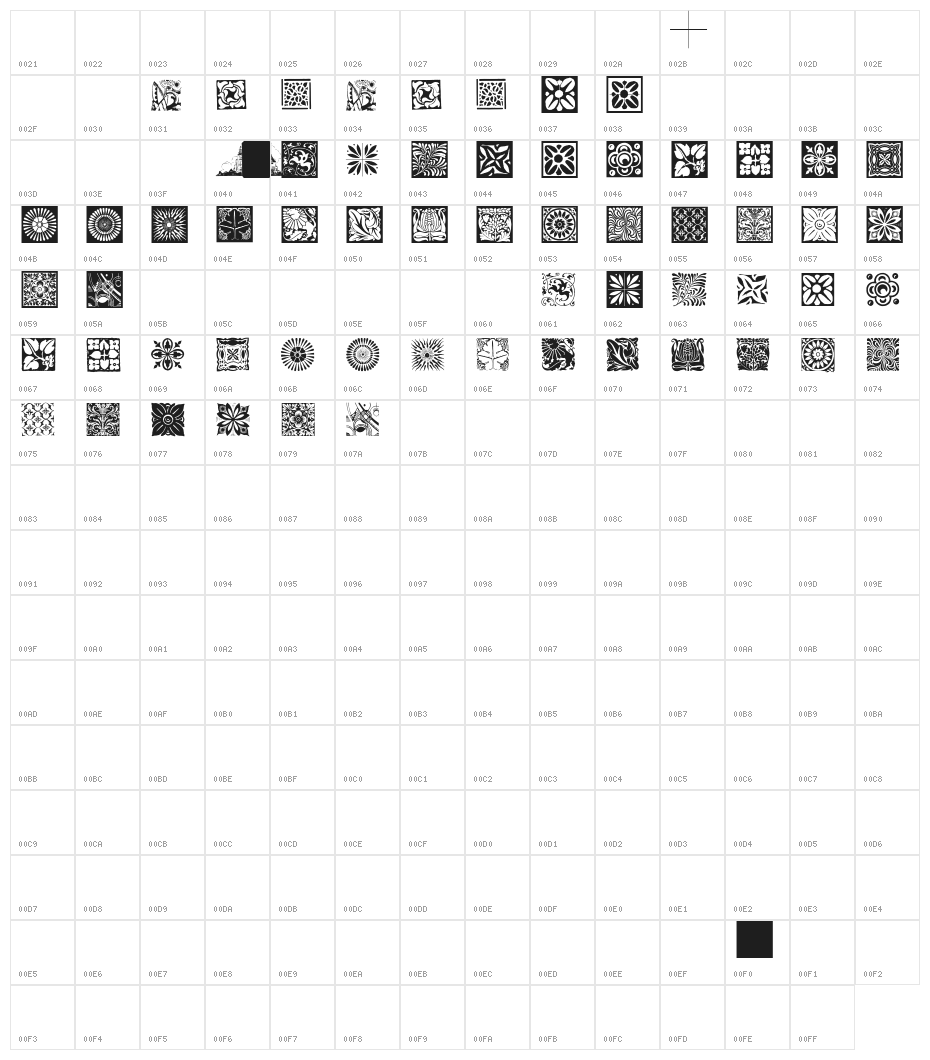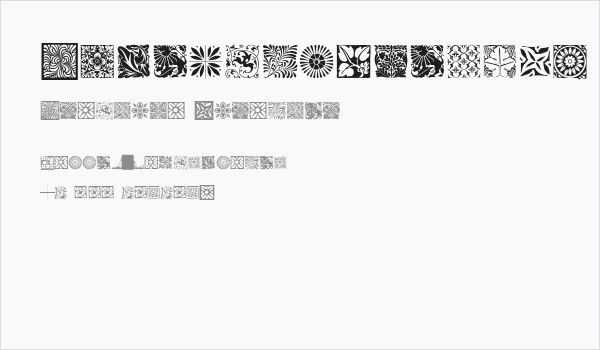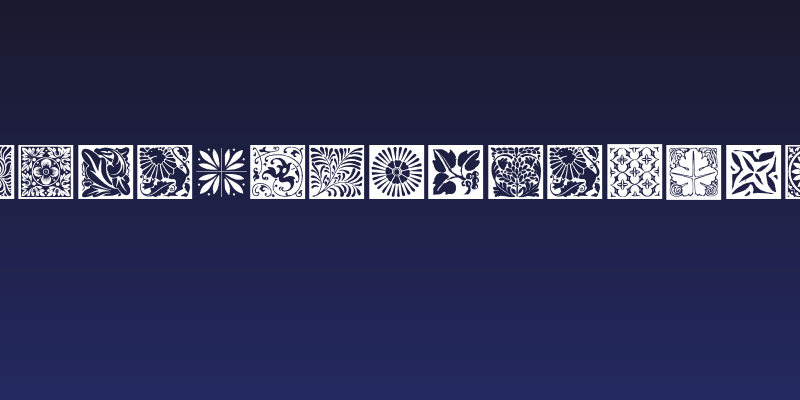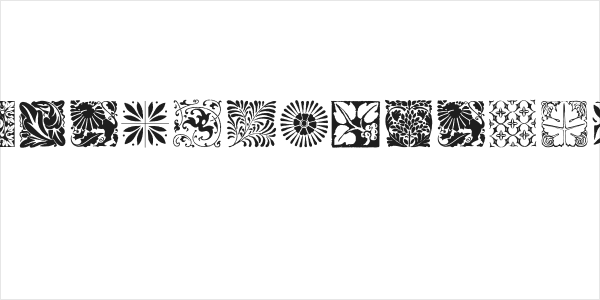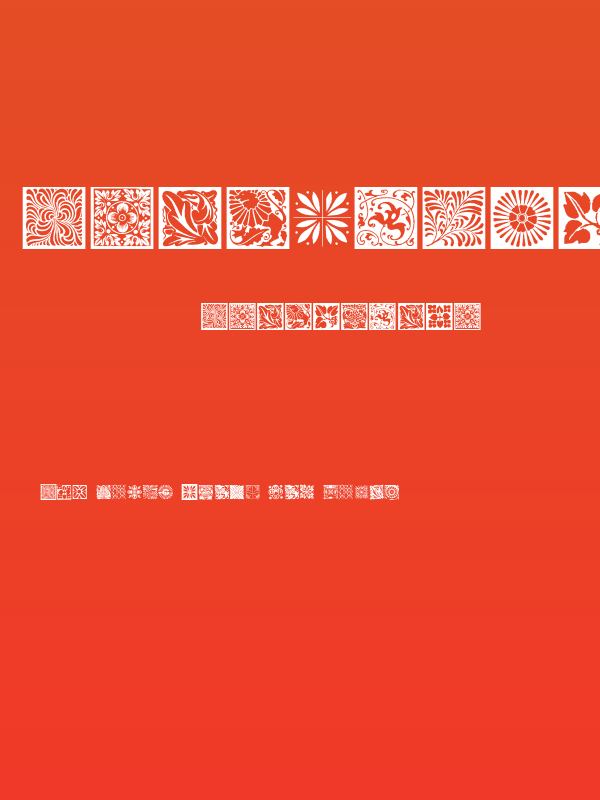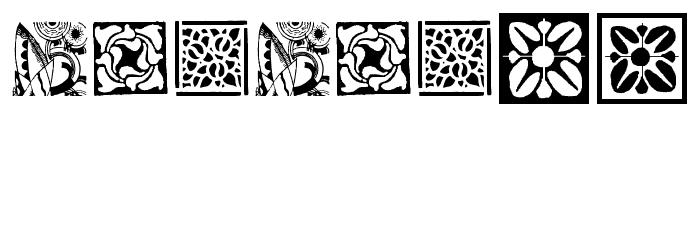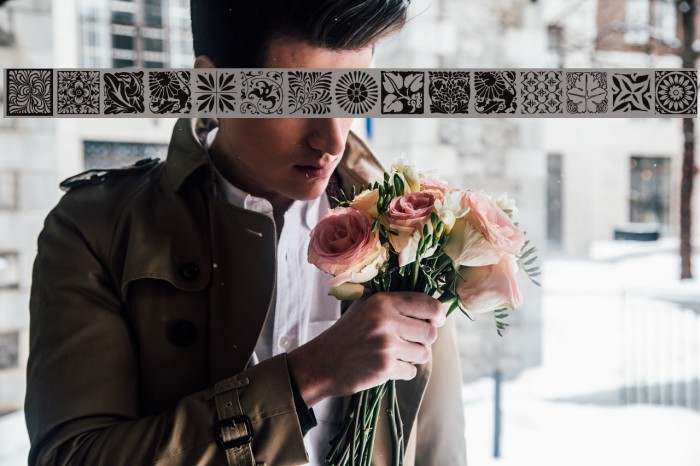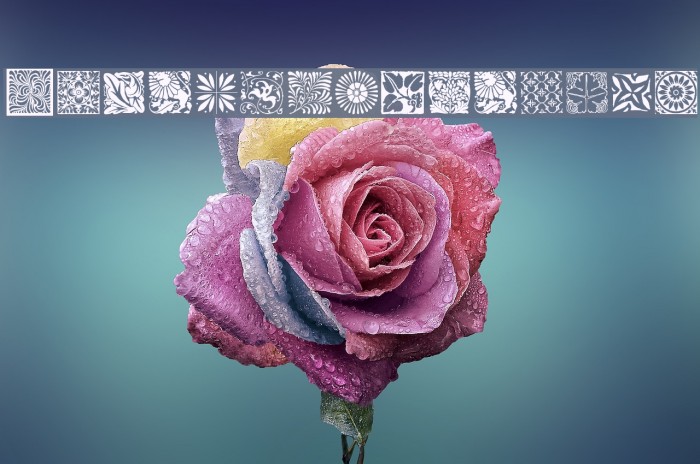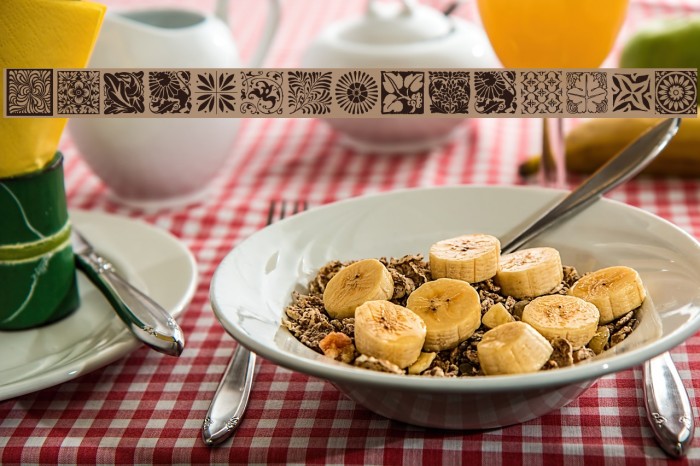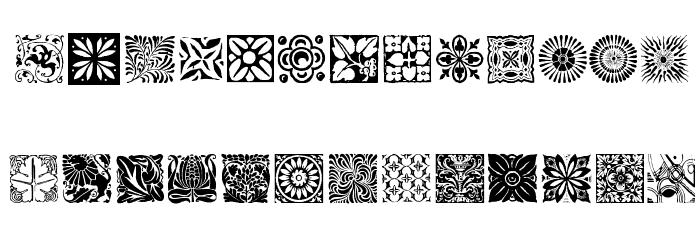
TypoBackgrounds Font
TypoBackgrounds Description
A decorative display set featuring intricate, ornamental tile-like patterns with floral and geometric motifs, rendered in high-contrast black and white. Each character is represented by a unique square design, evoking vintage or traditional ceramic tiles.
| Overall Style | Decorative, Vintage, Ornamental |
| Use Case | Headlines, Logos, Decorative elements |
| Proposed Projects | Posters, invitations, branding for restaurants or cafes, packaging, decorative borders, event materials. |